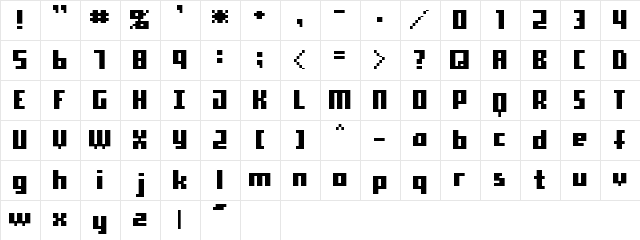
9px2bus Regular
Design Context for 9px2bus Typeface
9px2bus takes a measured approach to typography — its balanced proportions and neutral character make it a reliable workhorse for both digital and print work.